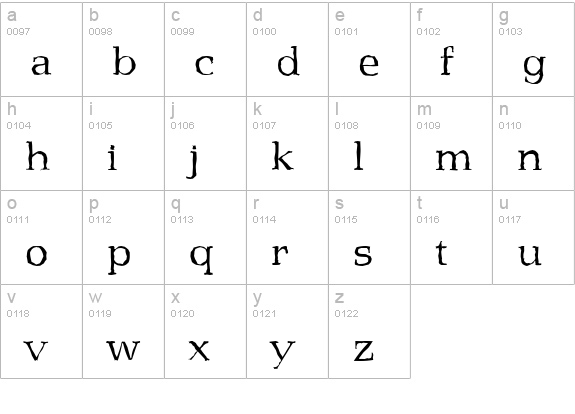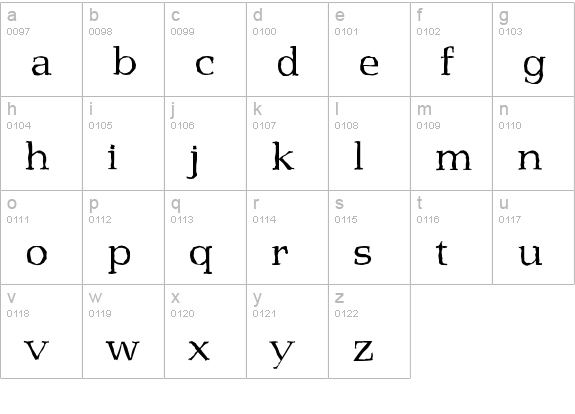
PenthouseAntique-Light-Regular Font Details
PenthouseAntique-Light-Regular is a refined, elegant variant in the PenthouseAntique typeface family \xE2\x80\x94 well suited to elegant body text, refined sub-headings, and luxury branding.
PenthouseAntique-Light-Regular is a classic and elegant serif font that exudes a sense of sophistication and timelessness. Its refined design makes it perfect for projects that require a touch of vintage charm and sophistication. This font features delicate serifs and graceful curves that add a touch of elegance to any design. What makes PenthouseAntique-Light-Regular even more appealing is that it is available for free download at FontsMarket.com. This means that you can easily access this beautiful font and use it in your various creative projects without any cost. Whether you are designing invitations, branding materials, or any other creative project, PenthouseAntique-Light-Regular is sure to elevate your design and give it a touch of class. Download it now and add a touch of timeless elegance to your work.